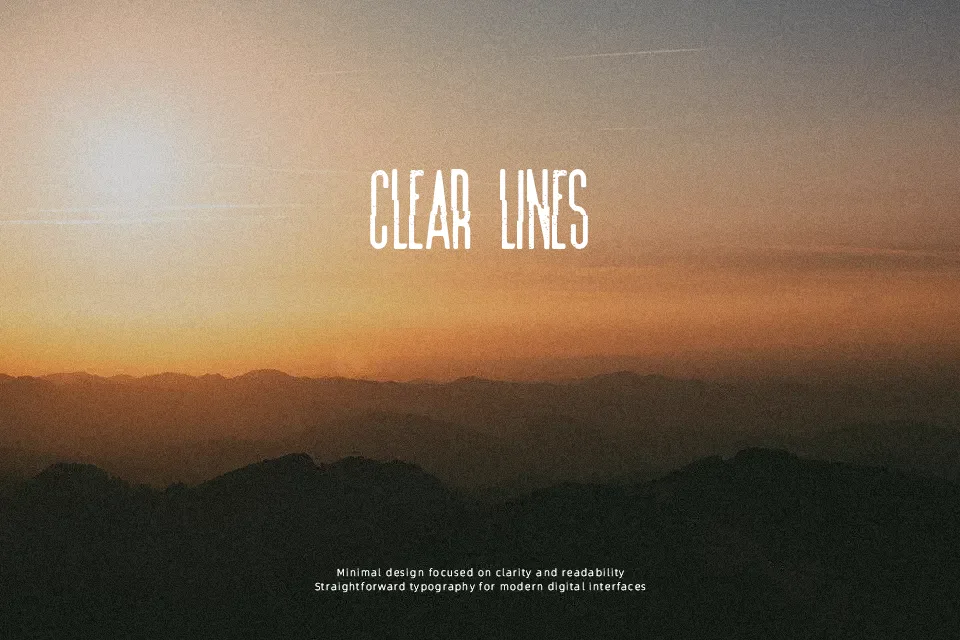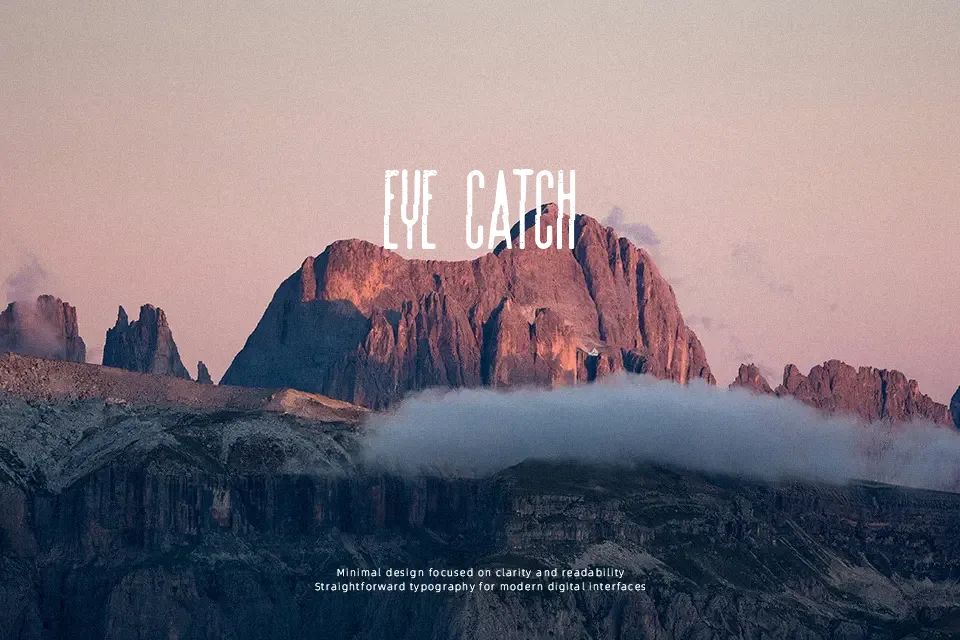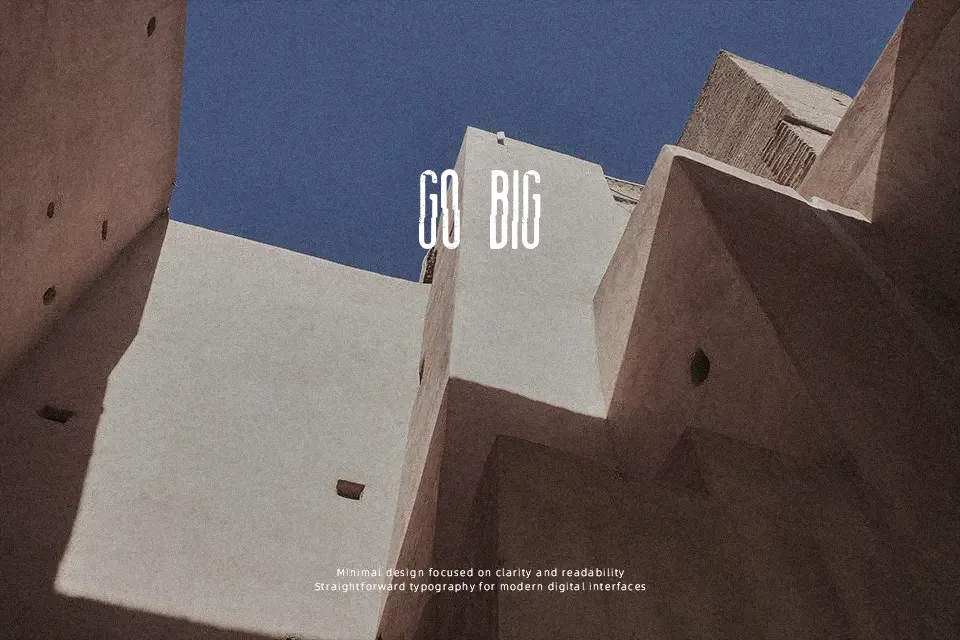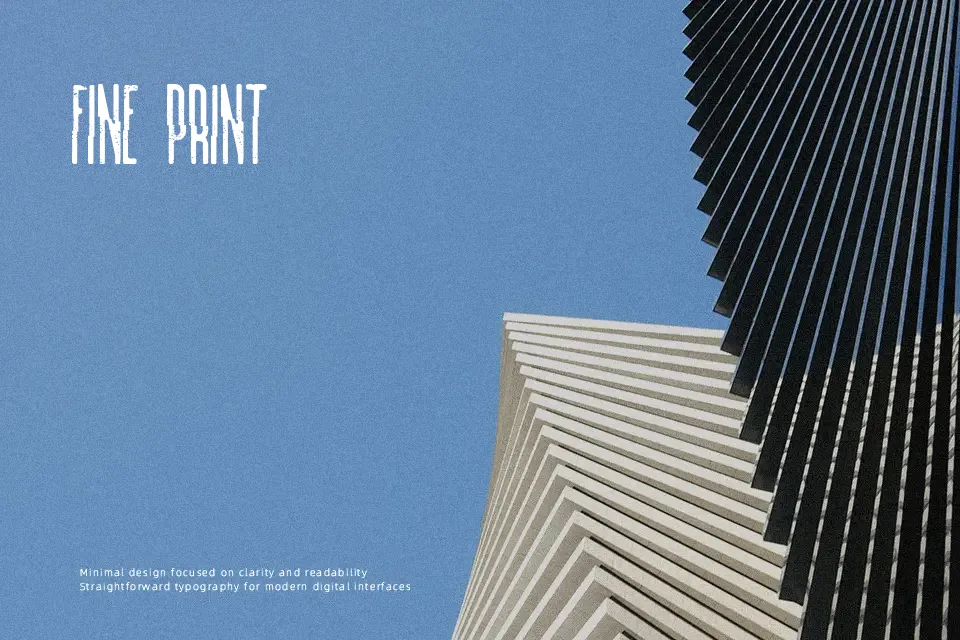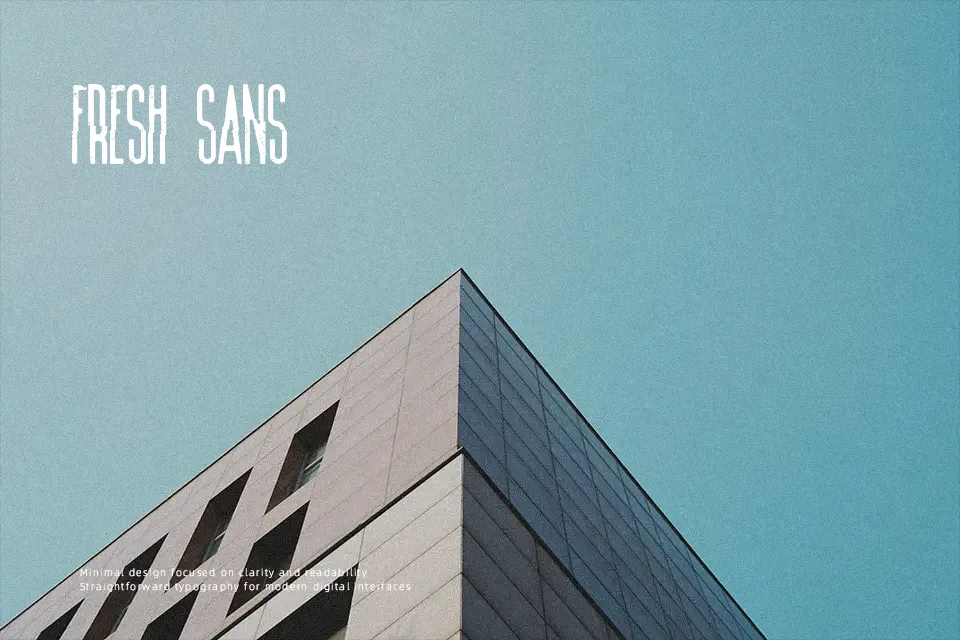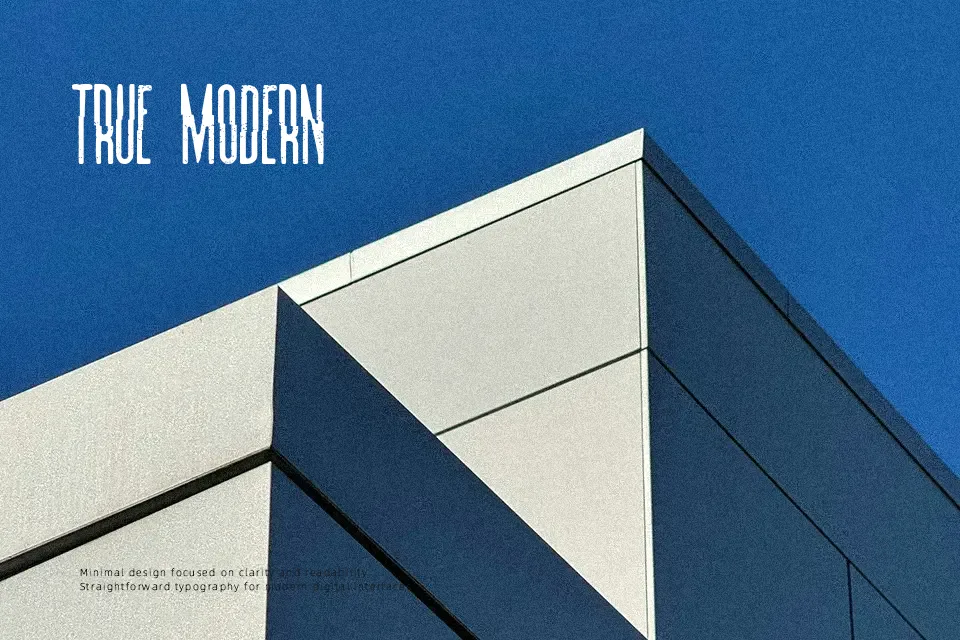
Summer Film Festival Font
Summer Film Festival Font uses irregular, distorted letterforms with a decorative display structure that gives headlines an offbeat, cinematic character. The strokes appear semi-light but vary through bends, angled edges, and uneven contours, while the proportions create a deliberately unsettled rhythm. Spacing is most effective when the type is set large with room around each word, allowing the altered shapes to remain recognizable. It works well for short titles, poster copy, and themed promotional artwork. At smaller sizes, the warped details can make individual characters harder to identify, so it is less comfortable for extended reading.
Best For: film festival posters,title cards,event banners,cinematic social media graphics
Perfect for film, headline, and poster, with a artistic and decorative style.